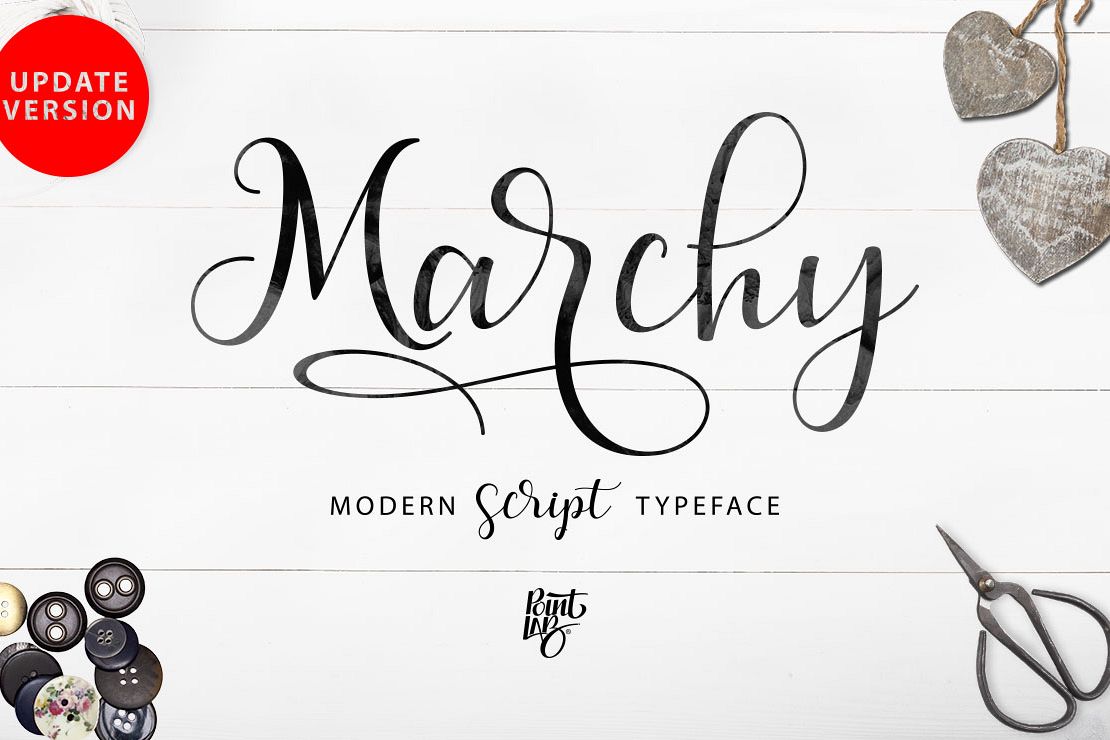
Marchy Script
MarchyScript
MarchyLine
MarchySans
IntroducingNew Update 3 STYLE FONTMarchy ScriptMarchy LineMarchy SansMarchy Script a new fresh & modern script with a handmade calligraphy style, decorative characters and a dancing baseline! So beautiful on invitation like greeting cards, branding materials, business cards, quotes, posters, and more!!Marchy Script come with 430+ glyphs. The alternative characters were divided into several Open Type features such as Swash, Stylistic Sets, Stylistic Alternates, Contextual Alternates. The Open Type features can be accessed by using Open Type savvy programs such as Adobe Illustrator, Adobe InDesign, Adobe Photoshop Corel Draw X version, And Microsoft Word. And this Font has given PUA unicode (specially coded fonts). so that all the alternate characters can easily be accessed in full by a craftsman or designer.Marchy Script:Uppercase & Lowercase International Languange & Symbols Support Punctuation & Number PUA Unicode Range Standard Stylistic Alternates Stylistic Set 1-12 Character Variant Contextual. The ZIP file are include the following :Marchy Script.OTFMarchy Script.TTFMarchy Line.OTFMarchy Line.TTFMarchy Sans.TTFMarchy Script Web Font (eot, svg, woff, woff2) If you don't have a program that supports OpenType features such as Adobe Illustrator and CorelDraw X Versions, you can access all the alternate glyphs using Font Book (Mac) or Character Map (Windows).For use in office word, you all can read the following article.http://www.magpiepaperworks.com/blog/using-opentype-fonts-in-microsoft-word/ To Access Alternate Characters Click The Link Below:How to access alternates in Adobe illustrator CS www.youtube.com/watch?v=HxkhZiCuwEw How to access alternates in Coreldraw X7https://www.youtube.com/watch?v=UBVsufJjons How to access alternates in Adobe Photoshop CChttps://www.youtube.com/watch?v=BYKXl58AdNY How to access alternates in Indesign CShttps://www.youtube.com/watch?v=HgZTCxKG14Q?If you have any question, don't hesitate to contact me by email. Thanks and happy designing :-)Thank You for purchase!